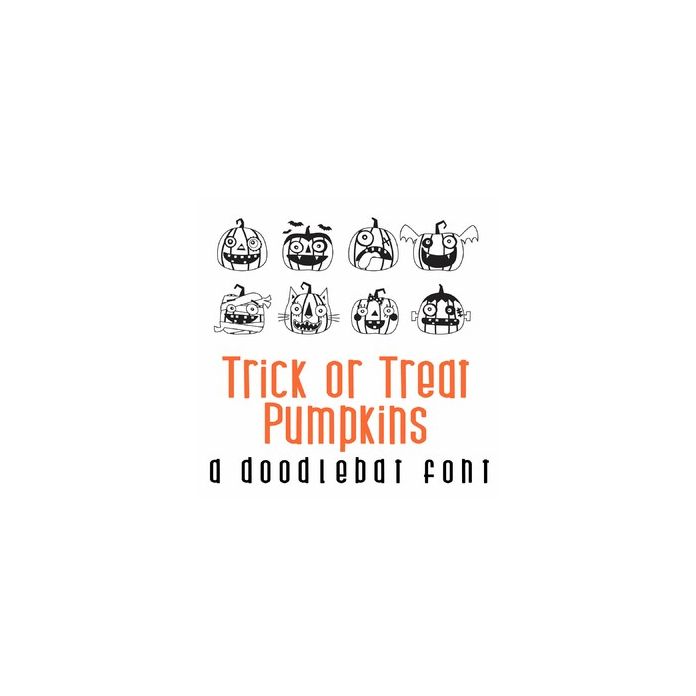
This fun doodlebat font features 26 funky Jack-O-Lanterns. Perfect for Halloween, parties, cards, gifts, decor, crafts, scrap book pages, planner stickers and more!